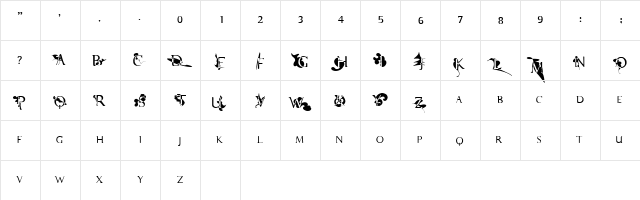
VAD PinkTriangle
Design Context for VAD Typeface
VAD is a composed and adaptable typeface that performs quietly and consistently across a wide range of design contexts.